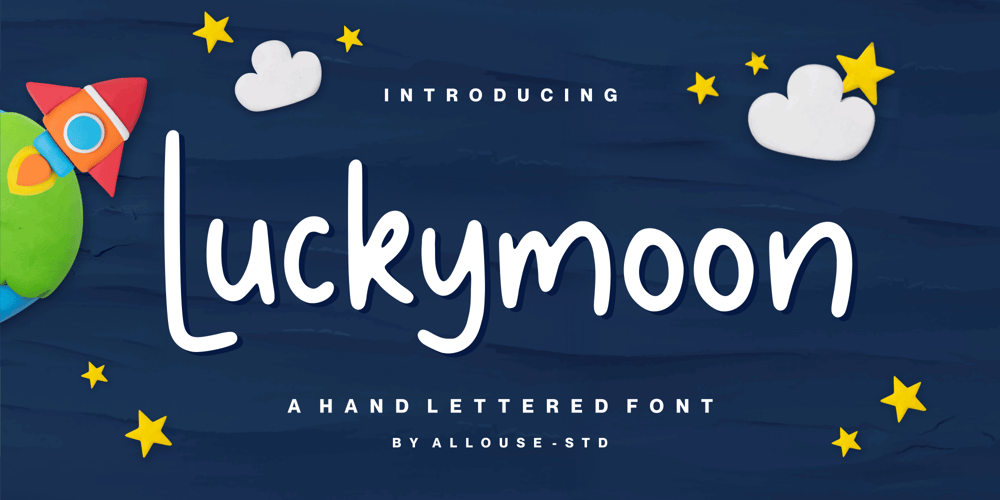
Luckymoon Font Family was designed by Fachrizal Yusuf and published by Allouse Studio. Luckymoon contains 1 styles and family package options. Proudly Presenting, Luckymoon A Charming Hand-lettered Font.Luckymoon is perfect for any titles, logo, product packaging, branding project, magazine, social media, wedding, or just used to express words above the background.Luckymoon also come with Multi-Lingual Support.Enjoy the font, feel free to comment or feedback, send me PM or email. Thank You!